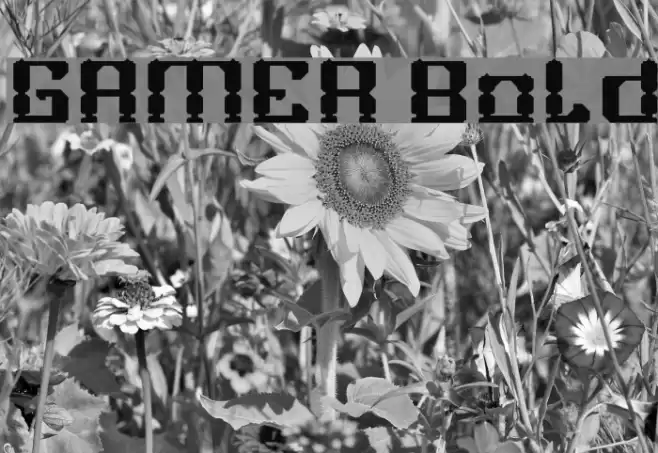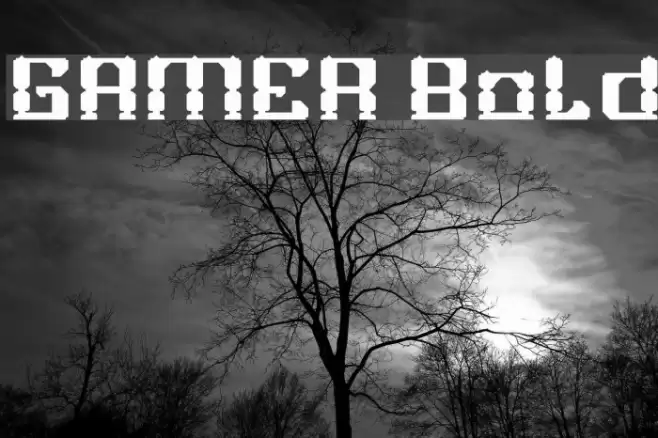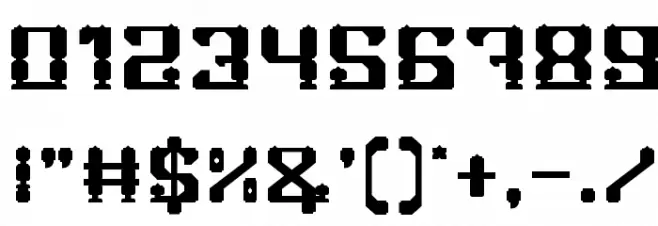
GAMER Bold Font
GAMER Bold Description
This font features a bold, geometric design with a distinctly digital and futuristic aesthetic. The characters are constructed with a blocky, pixelated style reminiscent of classic arcade games, making it ideal for projects that aim to evoke a sense of nostalgia or a tech-forward look. The uppercase and lowercase letters maintain a consistent width, contributing to a uniform appearance. The numbers and special characters follow the same design principles, ensuring cohesion across all text elements. The font's strong presence and unique style make it suitable for eye-catching headlines and titles.
A bold, geometric font with a digital, arcade-inspired style from Uncategorized fonts.
- Proposed Projects: Ideal for video game titles, tech-themed posters, and retro digital designs.